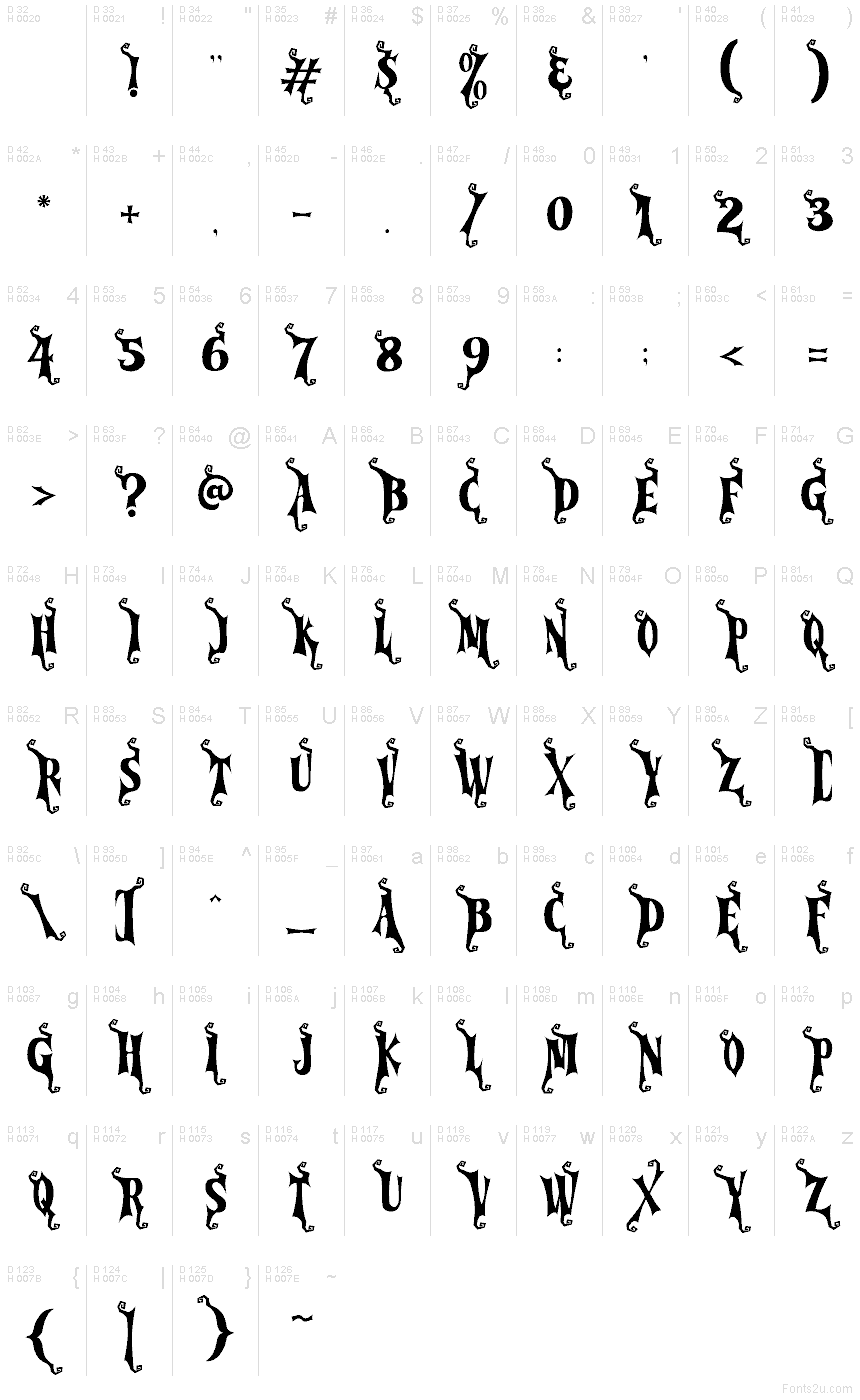
Cursed Gothic Witch
Cursed Gothic Witch font by PutraCetol Studio is a free Halloween display font that leans hard into eerie drama. In the Cursed Gothic family, its letters twist into thorny curves and hook-like tips, with inky, uneven strokes that feel hand-scratched and a little wicked. The rhythm is jagged yet readable, giving headlines that goosebump-inducing wobble without collapsing into chaos.
Using Cursed Gothic Witch, spooky concepts snap into place fast. It shines on party invites, haunted house posters, seasonal merch, YouTube thumbnails, book or zine covers, and social media promos. The sharp curls create instant mood, so you can keep layouts simple and let the title do the haunting. Pair this free font with a clean, condensed sans at small sizes to keep details crisp and the scare factor front and center.